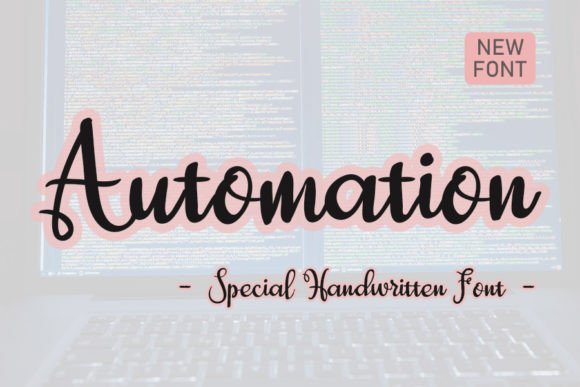
Introducing Automation Font, a must-have for anyone looking to elevate their designs with a font that truly stands out! Created by andaluccyletter, this script font boasts charming, playful characters that seem to dance along the baseline, making your text come alive.
If you're looking for a font that's perfect for hand lettering, Automation Font is just what you need. Its unique style makes it perfect for any project that needs a touch of creativity and originality. From invitations to logos, this font is versatile and can be used in a variety of applications.
With Automation Font, you can take your designs to the next level. It's the perfect addition to your font library, and you'll love the way it makes your work stand out. Its eye-catching and captivating appearance is sure to grab your audience's attention and leave a lasting impression.